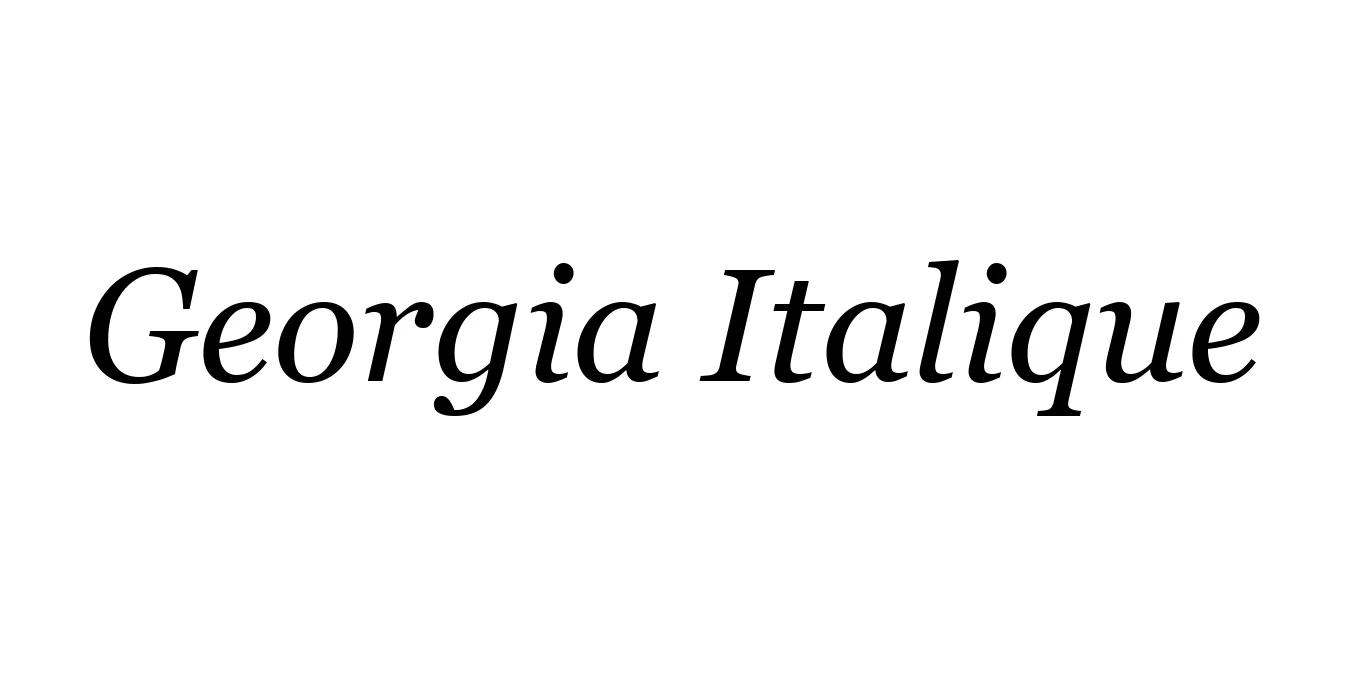
Georgia Italique
Designed by Matthew Carter
Georgia Italique was designed in 1993 by the world-renowned type designer Matthew Carter for Microsoft. It was specifically engineered to solve the problem of screen legibility, featuring a high x-height and open counters that remain clear even at small sizes on low-resolution monitors. Unlike many digital fonts of its era, Georgia was not a port of a print face but was built from the pixel up to ensure a superior reading experience in digital environments.
The Italique variant is a true italic, influenced by traditional calligraphic forms rather than being a simple slanted version of the roman weight. This gives the typeface a graceful, fluid motion that provides excellent contrast and emphasis within blocks of text. Today, it remains one of the most widely used and respected transitional serif typefaces in both web development and professional publishing.
Georgia Italique Best Uses
Provides exceptional legibility for long-form articles on computer and mobile screens.
Excellent for body copy in magazines, newspapers, and academic journals.
Ideal for formal business letters, resumes, and legal documentation.